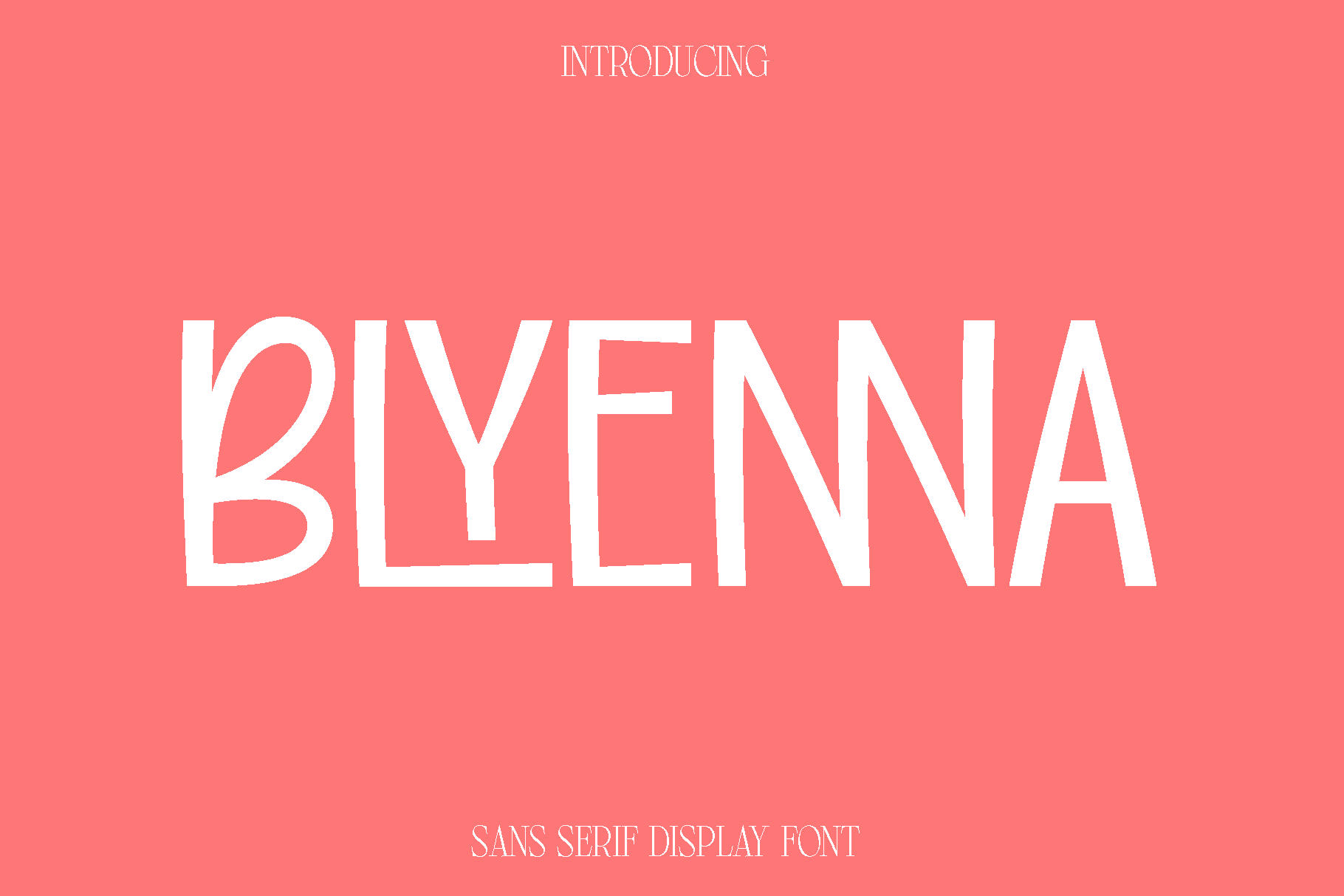
Blyenna - Sans Serif Display Font
Blyenna is a refined and versatile typeface designed to bring elegance and clarity to a wide range of creative projects. Inspired by modern editorial aesthetics and timeless typography, Blyenna features balanced letterforms and smooth proportions that create a clean yet expressive visual presence. Its design focuses on readability while maintaining a distinctive personality, making it a reliable choice for both display and text applications.
The font feels sophisticated, calm, and contemporary, allowing it to shine across many design contexts. Blyenna works beautifully in books, magazines, branding, logos, photography overlays, quotes, blog headers, posters, and advertising materials. Whether you are building a minimal brand identity or designing an eye catching layout, Blyenna adds a polished and professional touch that enhances the overall composition.
Crafted with attention to detail, Blyenna offers flexibility and consistency, making it suitable for both digital and print environments. Its timeless character ensures your designs remain stylish and relevant, while its functional structure helps maintain excellent legibility at various sizes. Blyenna is a perfect choice for designers who want a dependable typeface with an elegant and modern feel.
Blyenna Font Features:
• Uppercase and lowercase characters
• Numerals and functional glyphs
• Multilingual support